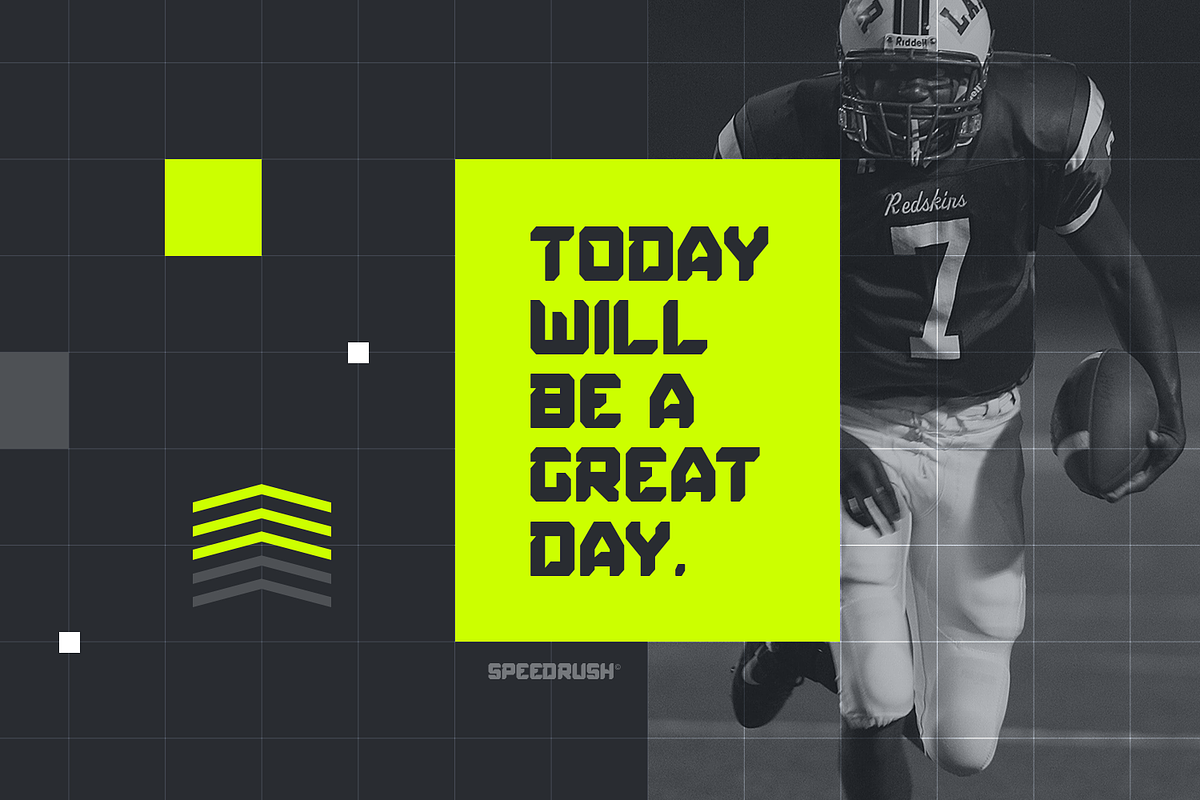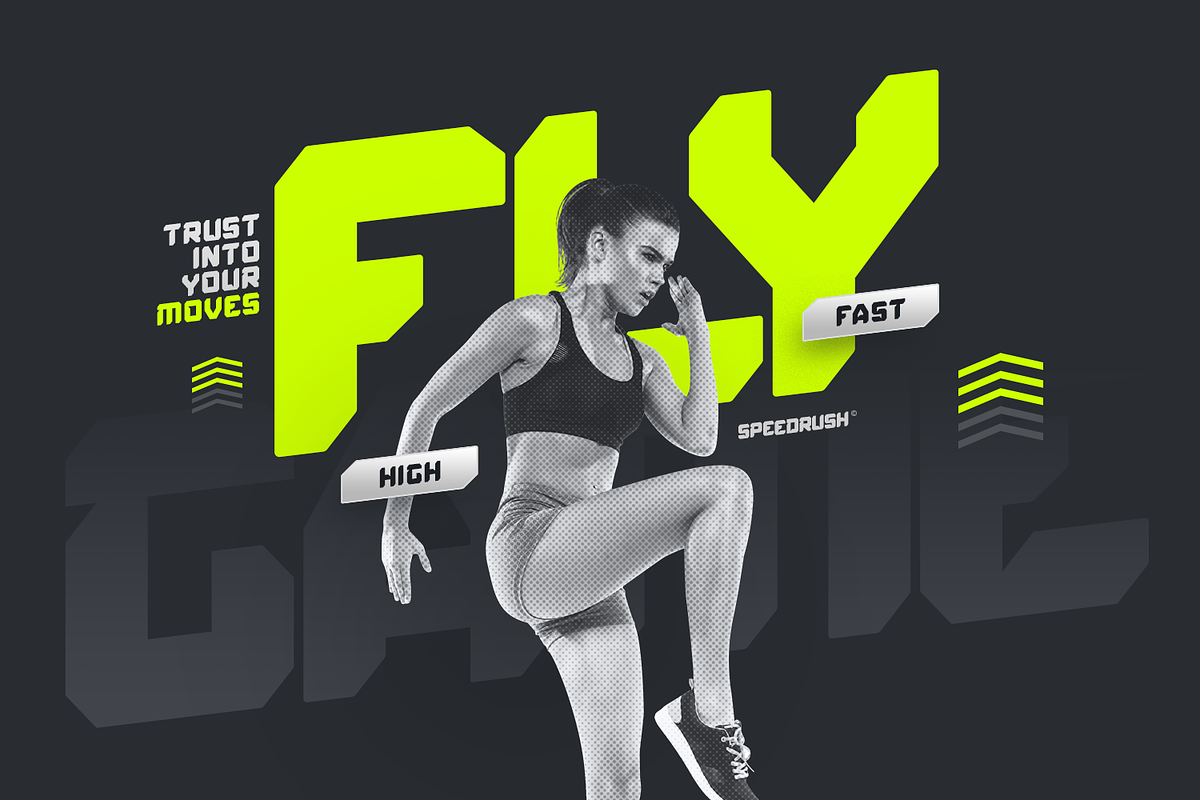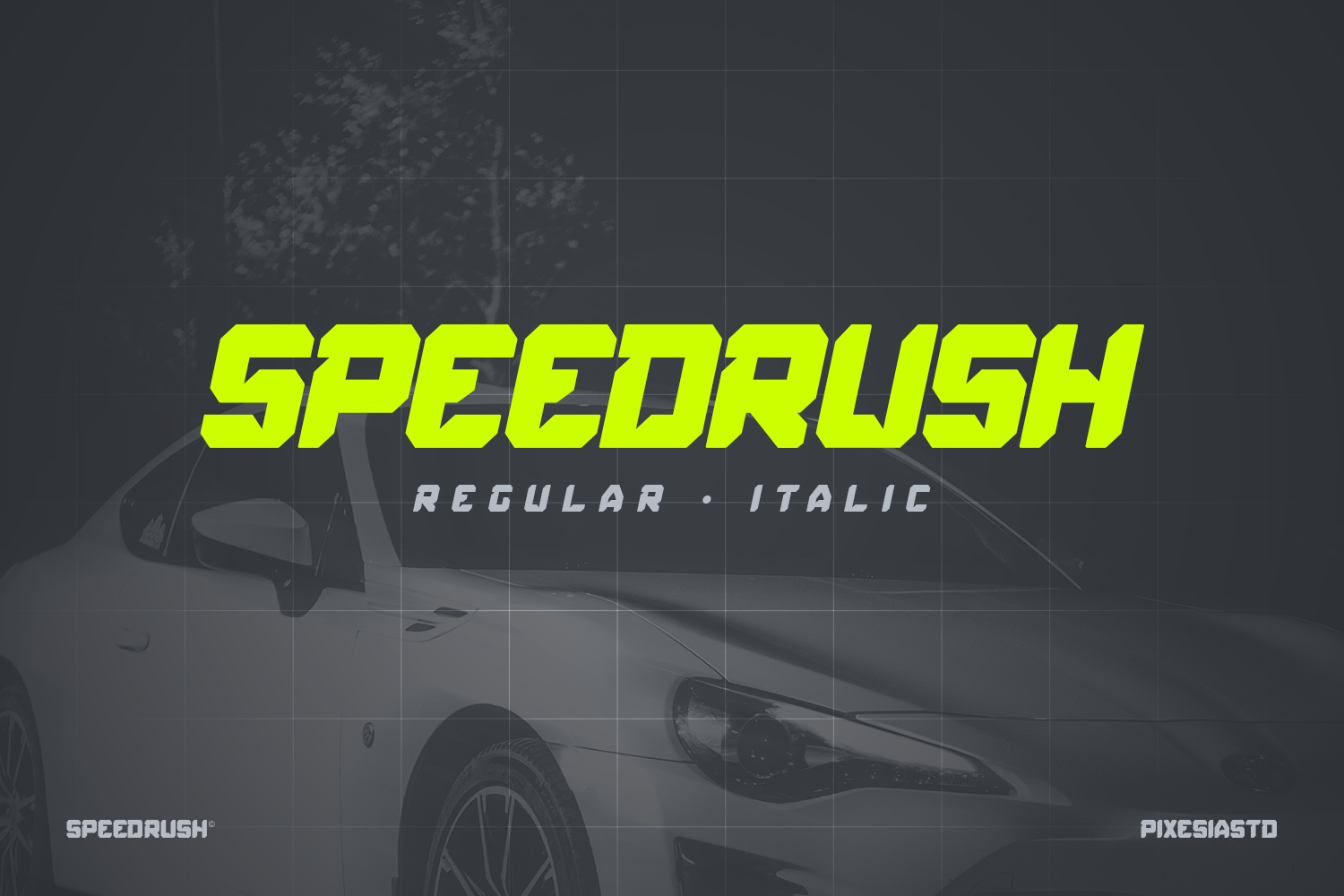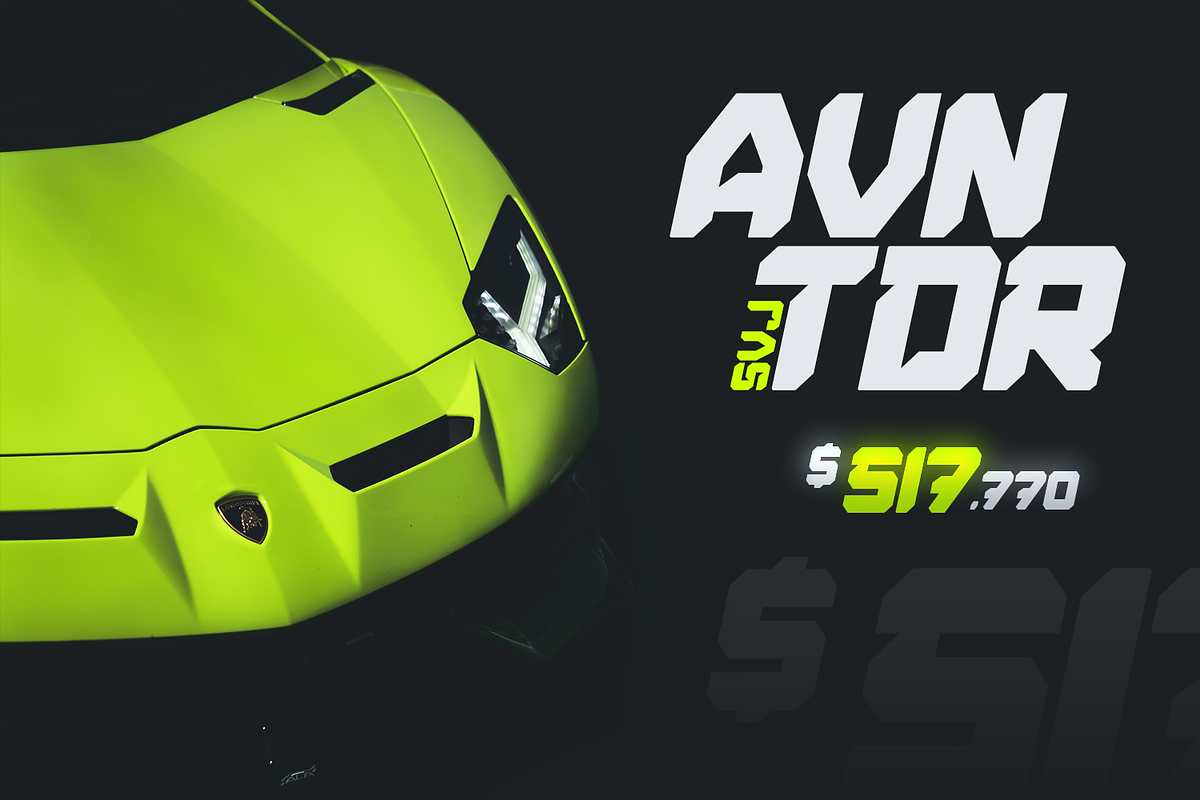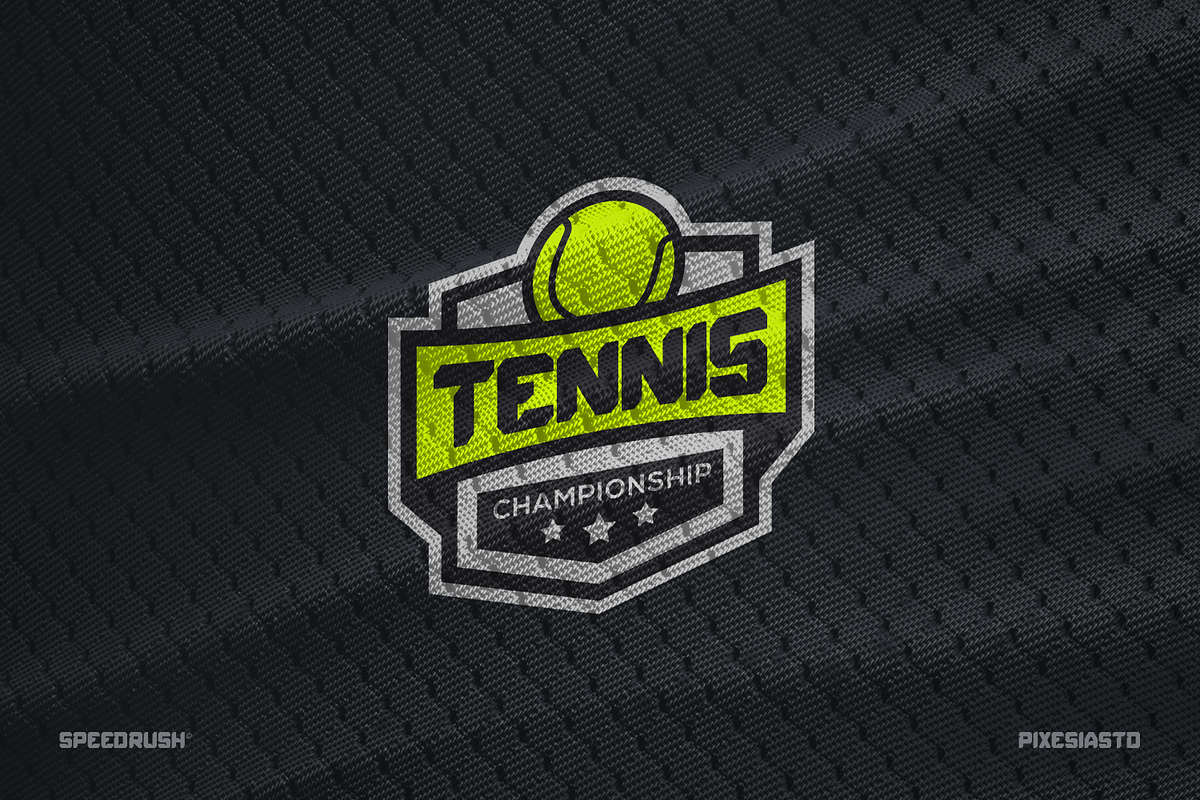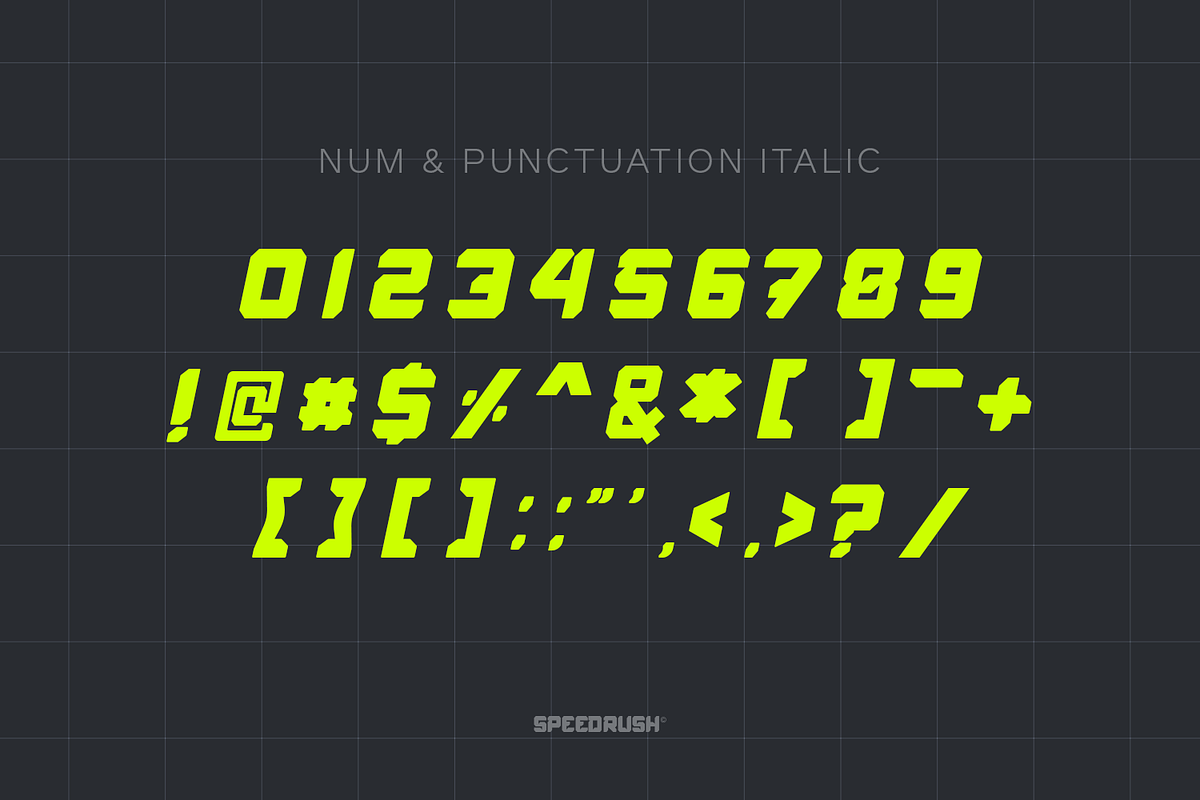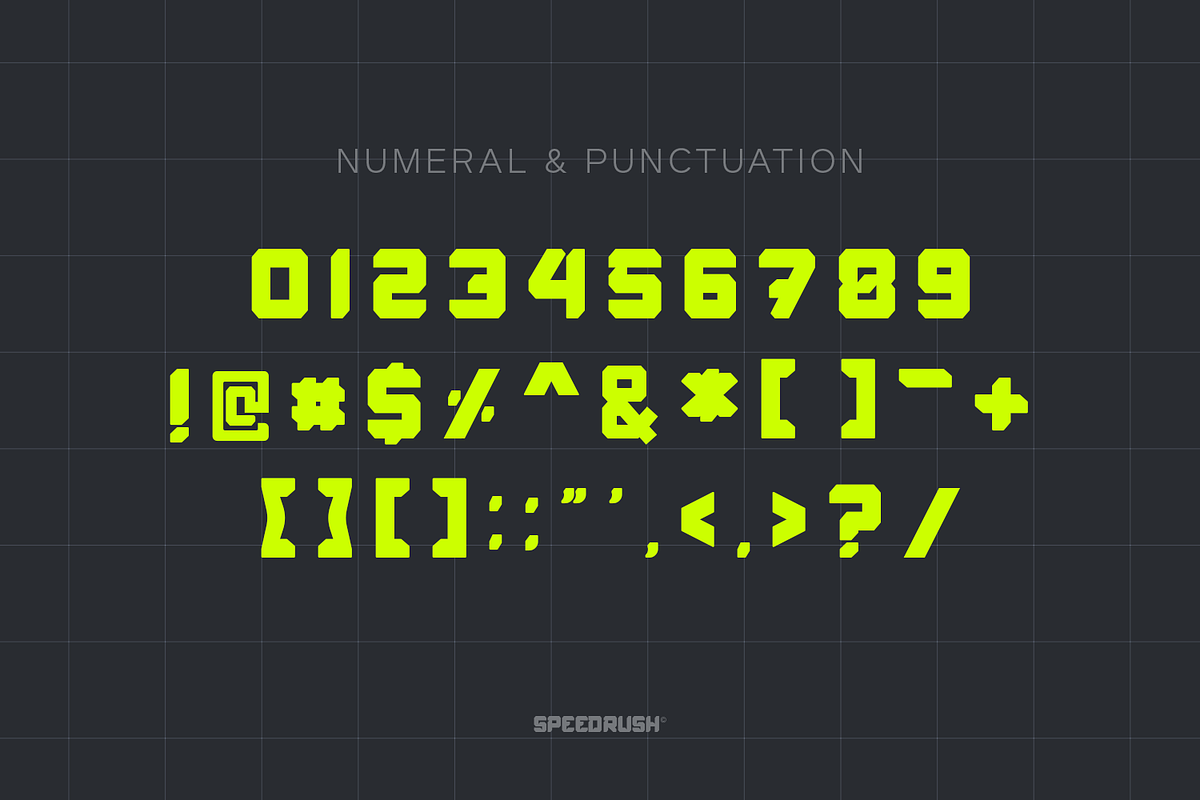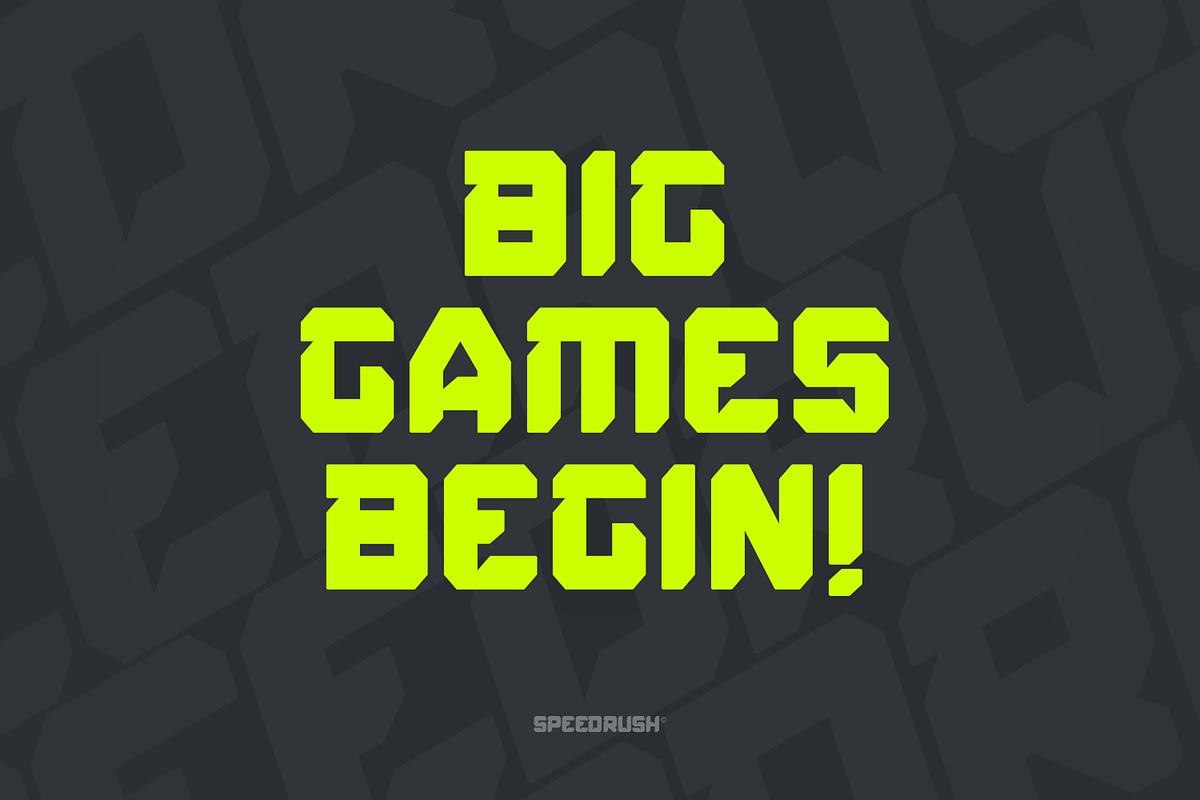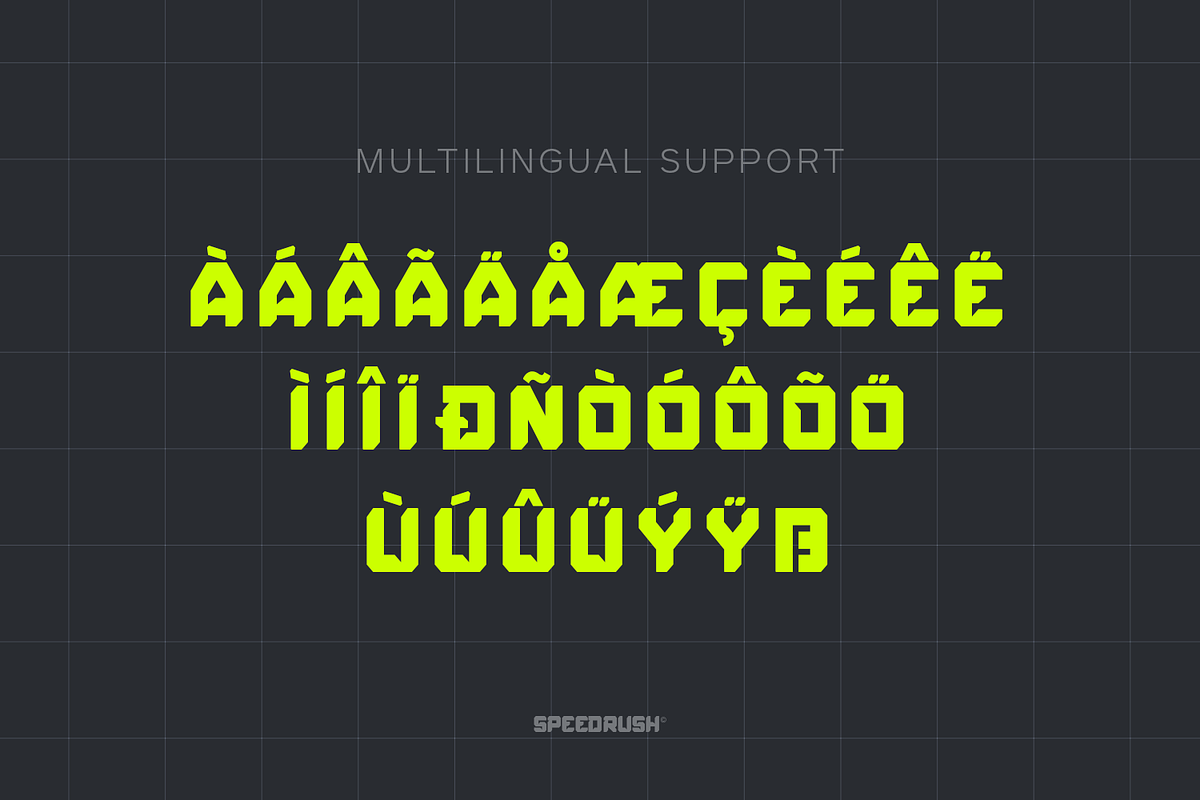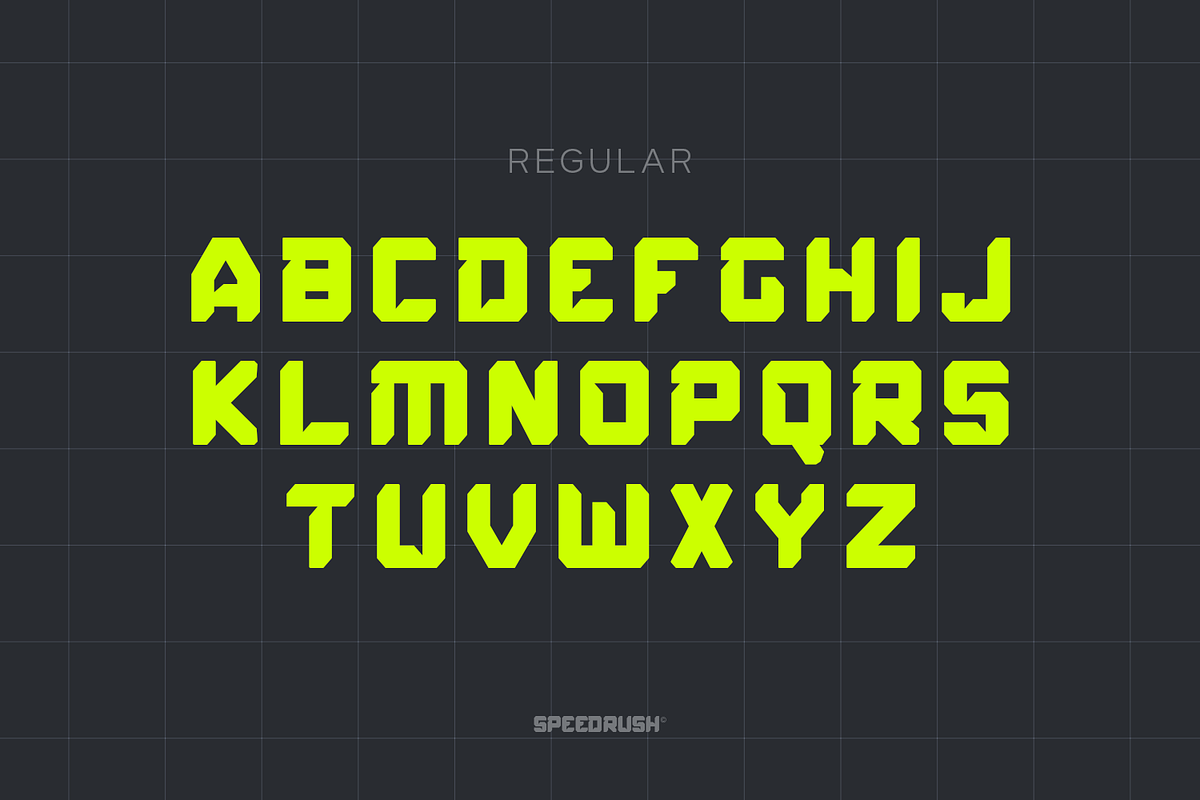
Speed Rush - Race Display Font
Introducing Speed Rush - A Race Display Font
Speed Rush is an assertive and modern display font that oozes strength and toughness. It suits perfectly any racing theme or online game. Have fun with this beautiful font and explore its endless variations.
- All Caps